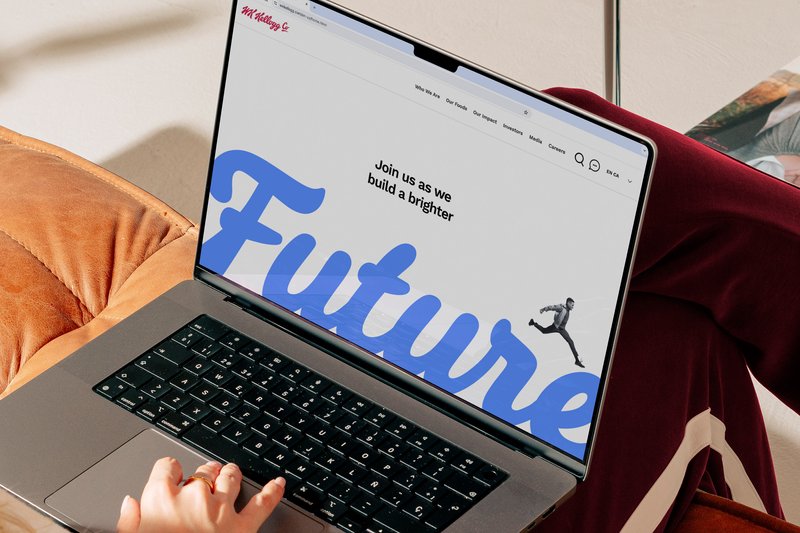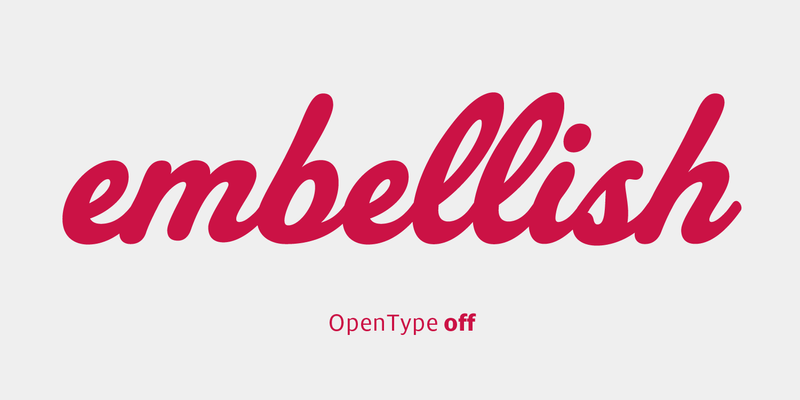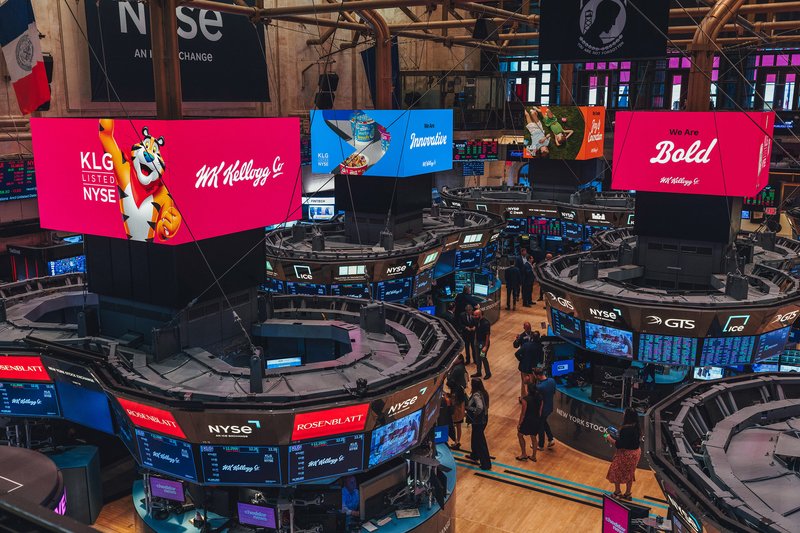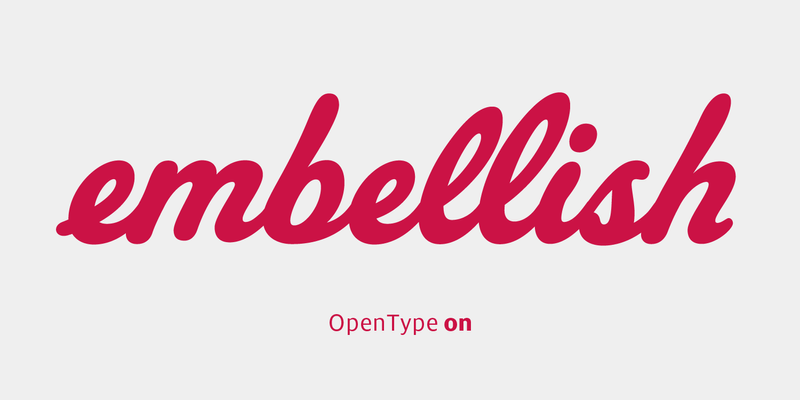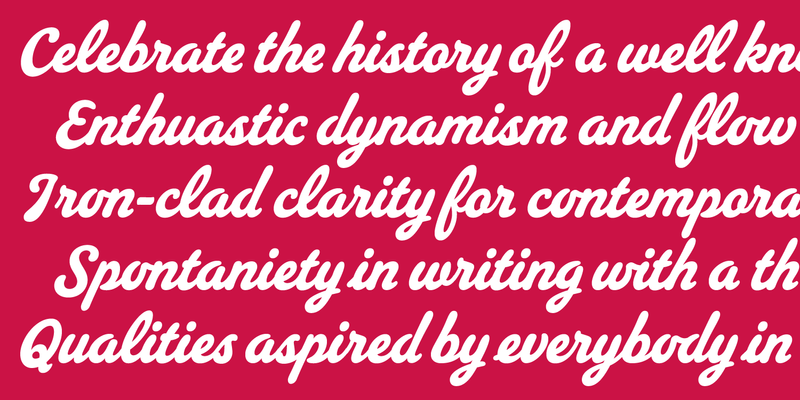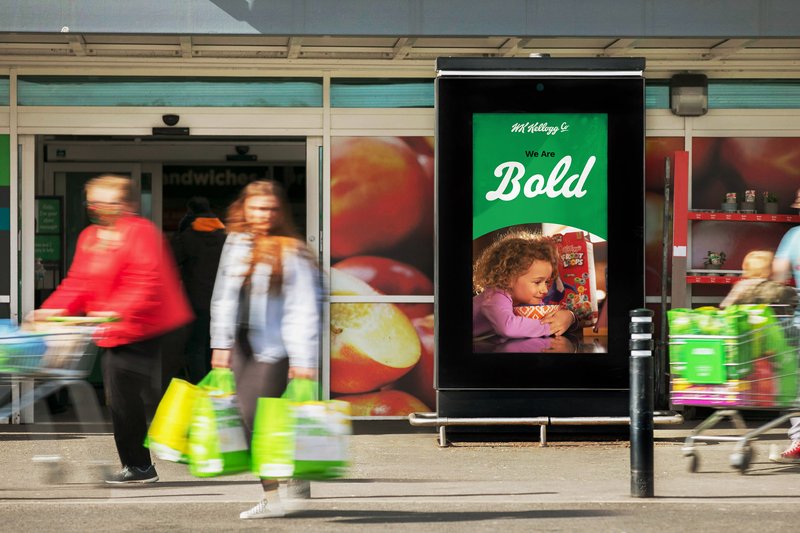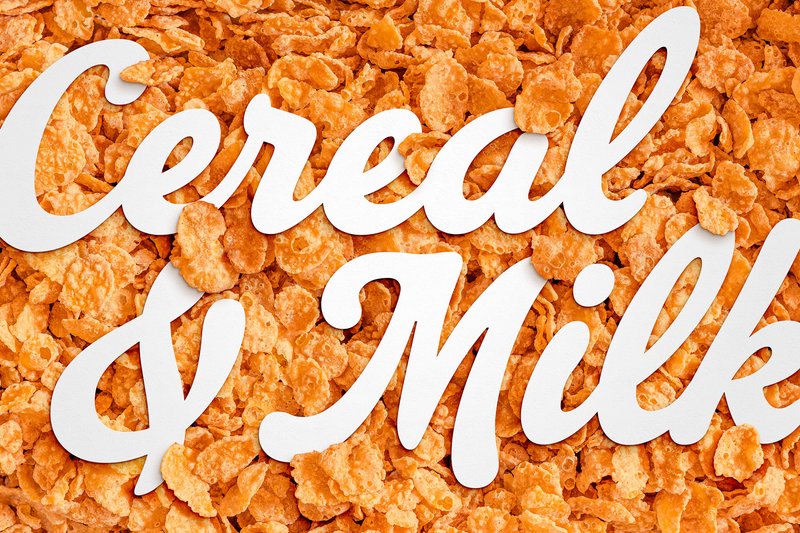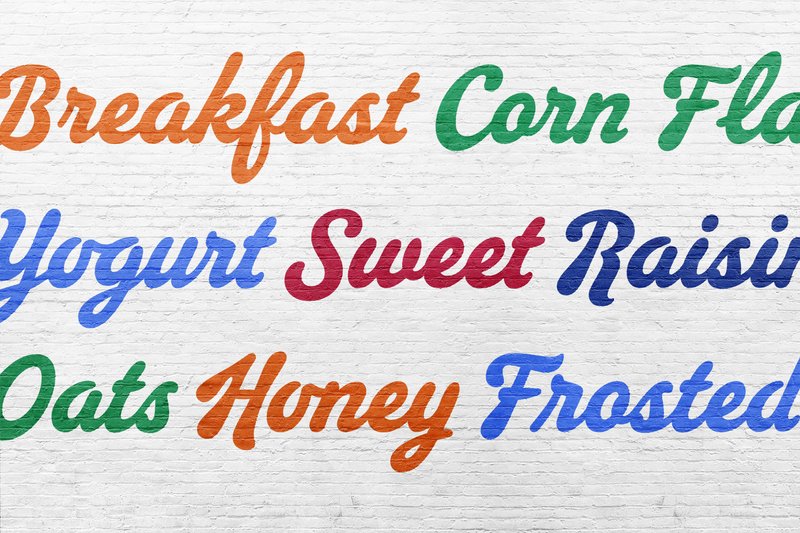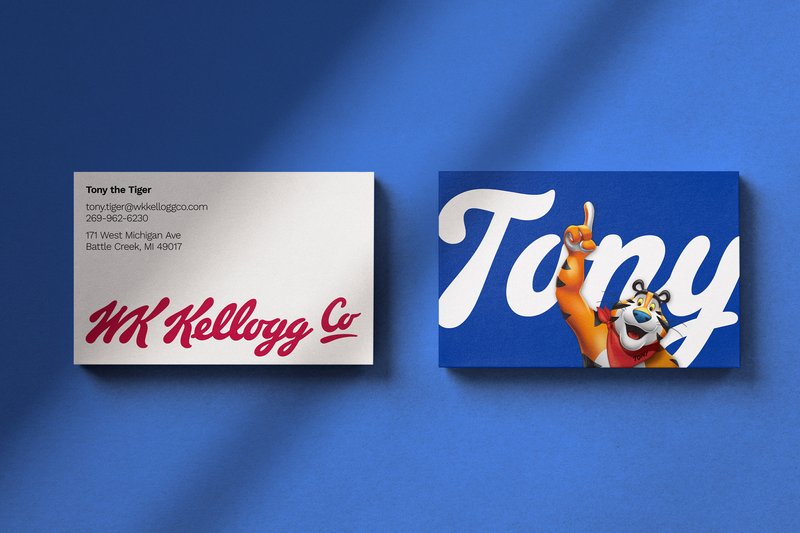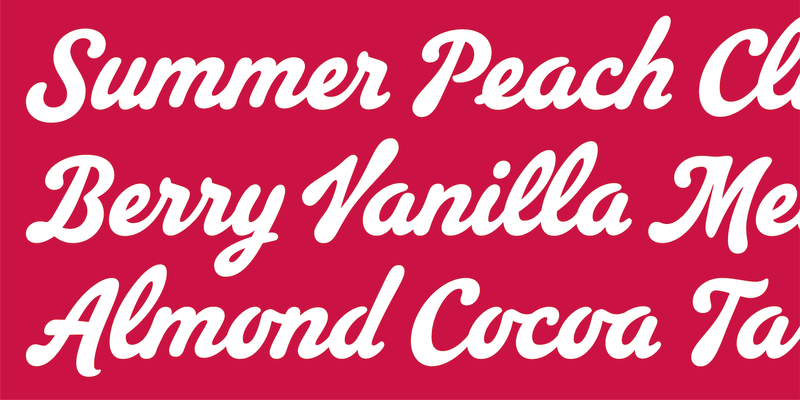
Custom typeface for WK Kellogg Co
Sample uses of WK Kellogg Script. Image: Brunswick Group
Sample uses of WK Kellogg Script. Photo: Brunswick Group
A brand-new typeface that’s “always existed”
Kellogg Company’s separation into two independent, public companies—Kellanova, a global, snacks-led powerhouse, and WK Kellogg Co, a North American food company focused on cereal—was an opportunity to define the new logo and design a proprietary typeface for WK Kellogg Co that would draw upon the deep history of a celebrated brand.
The new identity for WK Kellogg Co honors the entrepreneurial spirit of founder, Will Keith Kellogg, while elevating the company to new heights. Working with Kellogg Company on the new systems, Harlie Brindak, creative director at leading critical issues firm Brunswick, envisioned creating a working font for WK Kellogg Co’s corporate communications based on its founder’s iconic signature to infuse his entrepreneurial spirit into every aspect of the new identity.
XYZ was an incredible partner throughout this process. In this particular case, we were working from a singular point of reference, and a globally recognized one at that: the current Kellogg’s logo. And while it’s distinctive, there was much to be defined for the typeface. Through their research, imagination, and skill, they were able to build a completely natural and beautiful script that feels as though it’s always existed. I can’t thank them enough.
Harlie Brindak, Creative Director, Brunswick Creative
Specimens of WK Kellogg Script
Brunswick Creative had been working with XYZ Type’s Ben Kiel on refining the final lettering for the new WK Kellogg Co logo, so Harlie asked us to design a script typeface that would feel like its long-established counterpart. With its well-known K and flowing lowercase, the logo would be a perfect starting point, but it wasn’t as simple as drawing letterforms that resembled the logo.
Conveying the essence of a logo
For this project, we collaborated with Rodrigo Saiani at Plau, a Type Network partner foundry. His fresh perspective, experience with script lettering, and endless enthusiasm were indispensable. Together, we researched the history of Kellogg’s packaging and advertising, cross-referencing it with lettering and sign-painting manuals from the early 20th century, when the original logo was created. “After hours searching through treasure troves of vintage lettering for clues to the project’s toughest challenges,” Rodrigo recalls, “we put pencil to paper.” Ben and Jesse then worked in close collaboration to choose hand-drawn sketches that matched the feeling of the logo but would be legible as stand-alone letterforms.
Initial sketches by Mariana Navarro of Plau
How do you expand a classic logo’s limited vocabulary of structures into a more diverse collection of letters, but still preserve its essence? This was the biggest challenge of the project. It took a great deal of back-and-forth to match the capital letters to the dramatic Kellogg’s K, then figure out a lower case that would maintain that dynamism without being too distracting.
Pinch me. That was my first thought when I was invited to work alongside Ben and Jesse to create a typeface based on one of the most iconic logos in history. Typefaces that want to be seen and felt, not just read, always spark my interest. Being able to collaborate with and learn from designers I look up to and respect so much was a big bonus.
Rodrigo Saiani, Plau
Time lapse of sketches by Rodrigo Saiani
Walking the tightrope of legibility
Designing a steady, highly legible typeface called for many small decisions from our team. One key early decision was to reduce the K’s unusually steep incline for a better fit between capitals and lower case.
Making an I or a J identifiable in a script typeface is no small feat, and this is where research into old sign-painting manuals paid off, inspiring a variety of options that Brunswick Creative tested live in their working files. To improve letter recognition, we decided against a cursive structure for the Q, F, and T. “We wanted shapes that felt authentic to the era,” says Jesse, “but a contemporary audience would find many of those old-fashioned script structures less than legible. We needed iron-clad clarity.”
Working in the real world
We standardized the relationships between letterforms to make them work within the confines of a digital font. The exit stroke of each letter connects to the next in a consistent and pleasing way, and OpenType contextual alternates allow glyphs to be automatically substituted at the beginning, middle, or end of a word, producing a more natural effect, closer to hand-drawn lettering. Special glyphs like the stair-step ll and the e with an entry stroke match the spontaneity of the logo.
But this typeface was meant for business communication, so we had to ensure the font files would be bulletproof even without these bells and whistles. PowerPoint, for example—everyone’s favorite presentation software—lacks the support for OpenType features that many script fonts depend upon. “Our goal,” says Ben, “was for the default characters to work really well without any fancy OpenType features. Then we could build extras on top of that base to make it work even better.”
WK Kellogg Co logotype and custom typeface on the floor of the NYSE on listing day for WK Kellogg Co
Project oversight
Stacy Flathau (Chief Corporate Affairs Officer, WK Kellogg Co)
Design agency
Brunswick Group
Creative direction
Harlie Brindak (Brunswick Group)
Type direction
Ben Kiel, Jesse Ragan (XYZ Type)
Typeface design
Rodrigo Saiani (Plau)
Lettering assistance
Mariana Navarro (Plau)
Year
2023